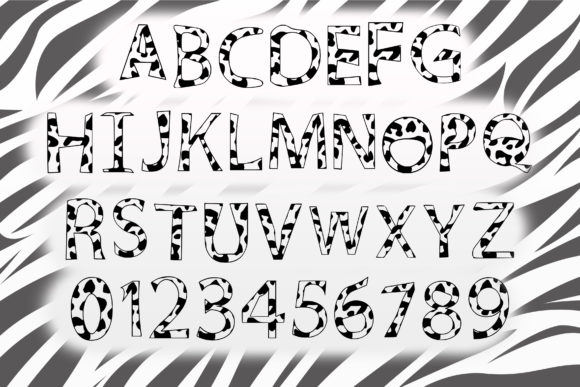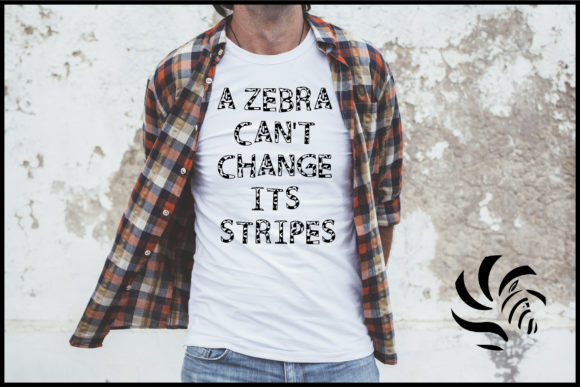
Introduction to Like Zebra Font
Like Zebra is a cool, playful and unique decorative font.
It embodies joy and authenticity and is the perfect choice for any children activity or school project .
Key Features of Like Zebra Font